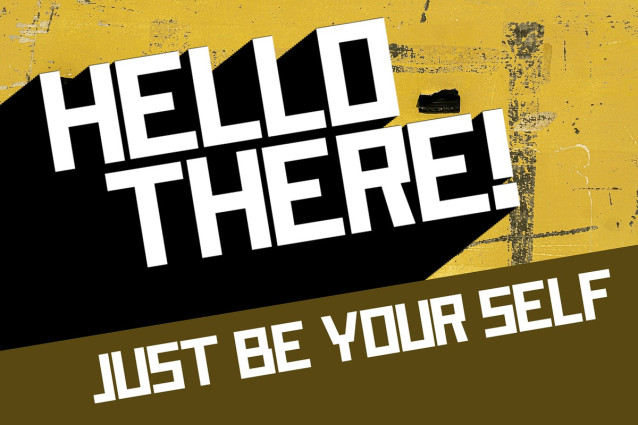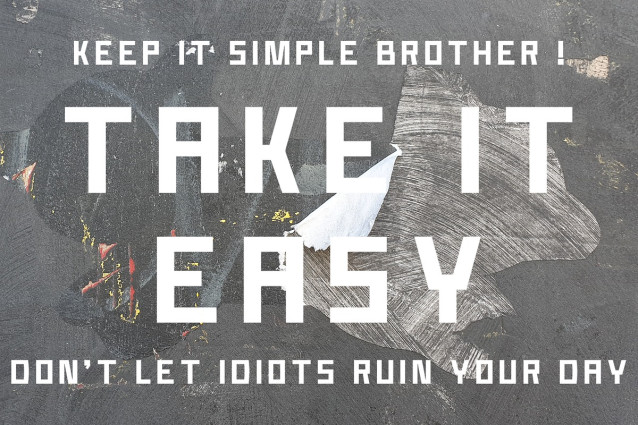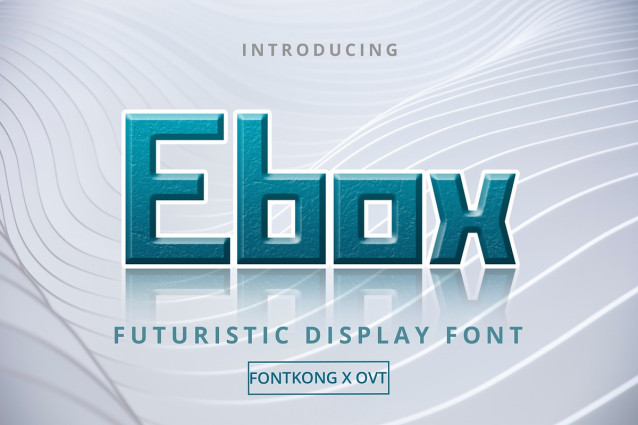
Ebox Font
Ebox Font a futuristic display font that brings a sleek, cutting-edge aesthetic to your design projects. Perfect for tech enthusiasts, graphic designers, and creatives aiming to capture the essence of the future, Ebox combines modern design elements with a forward-thinking style to deliver a font that stands out.